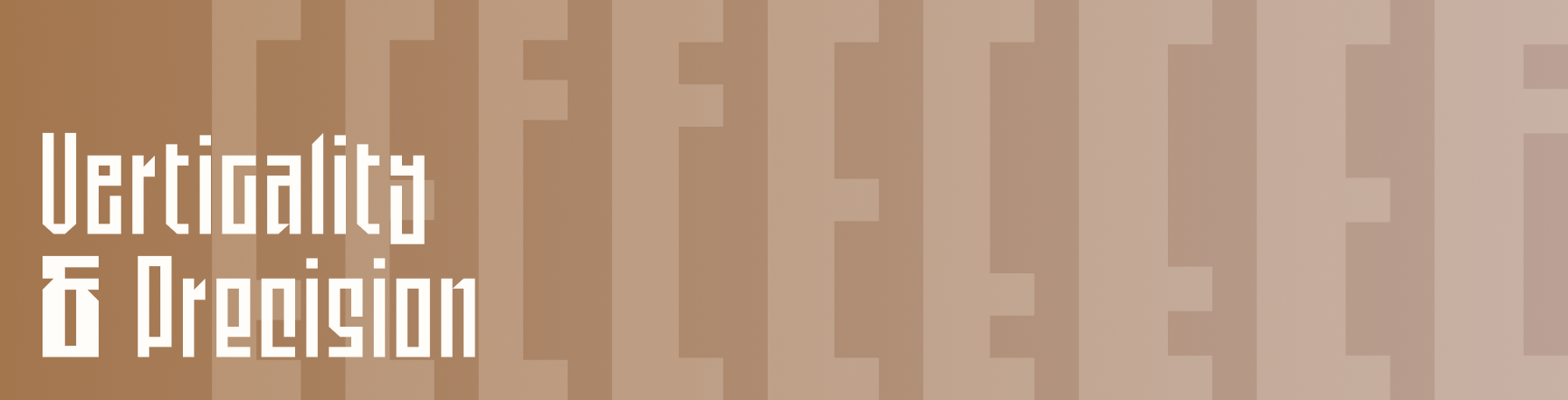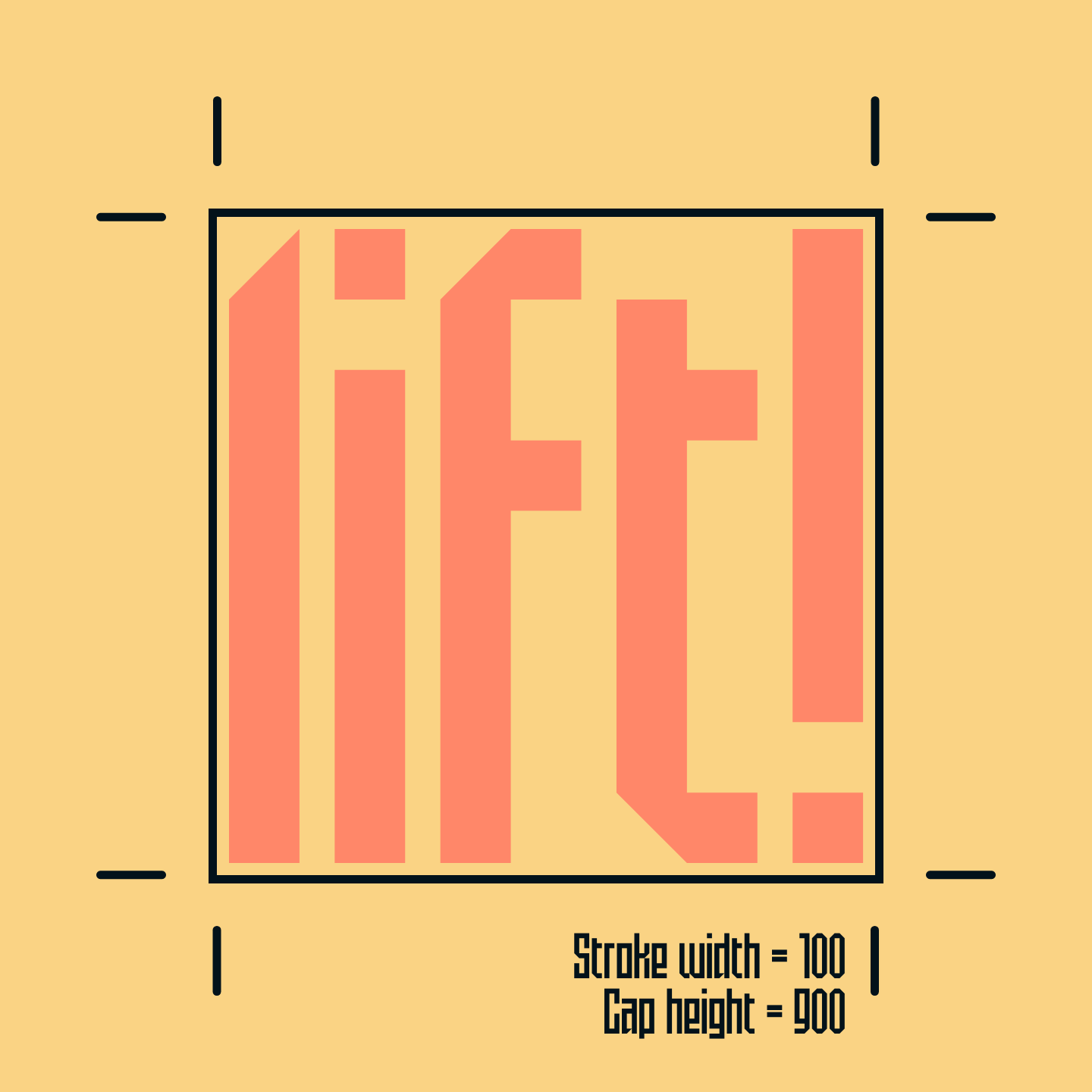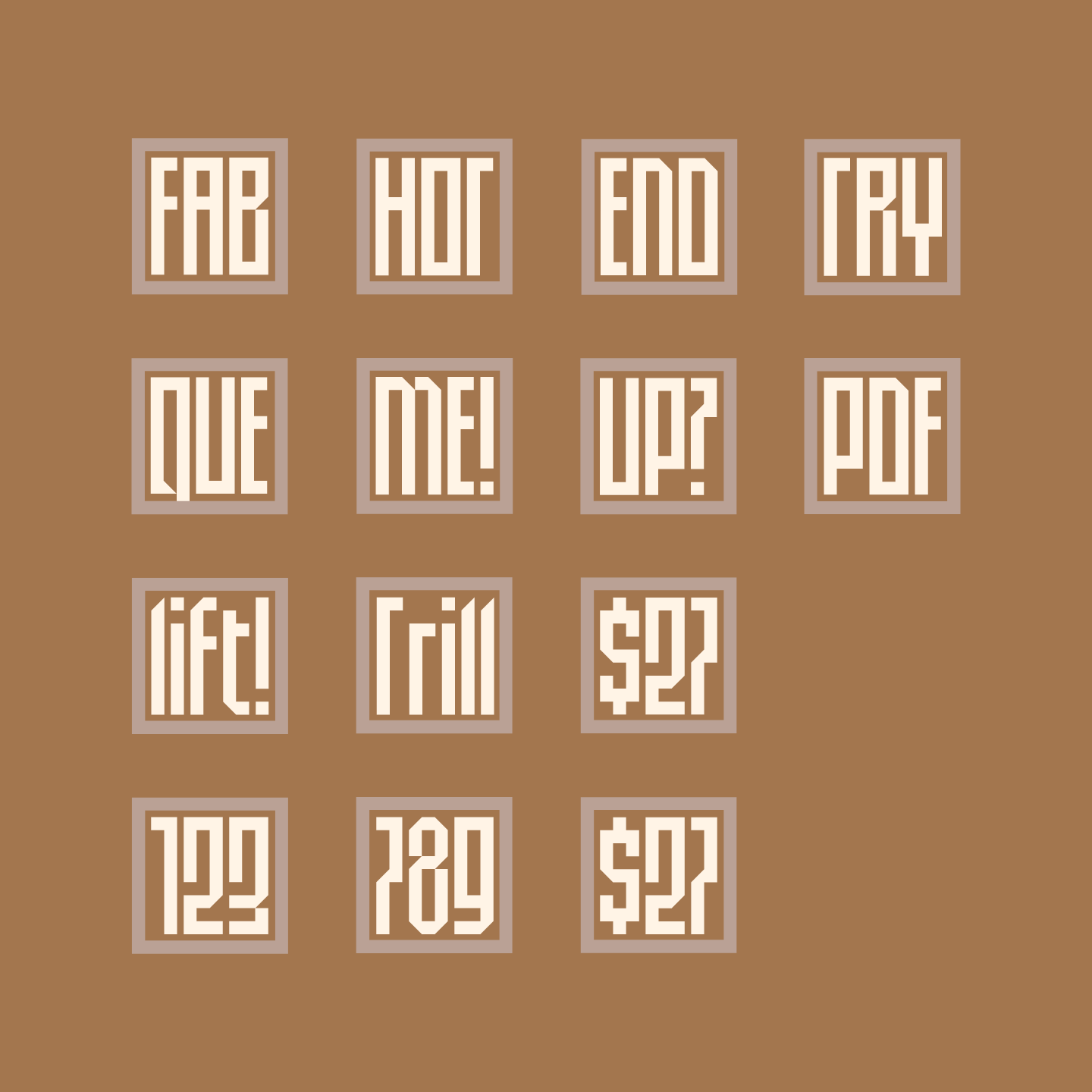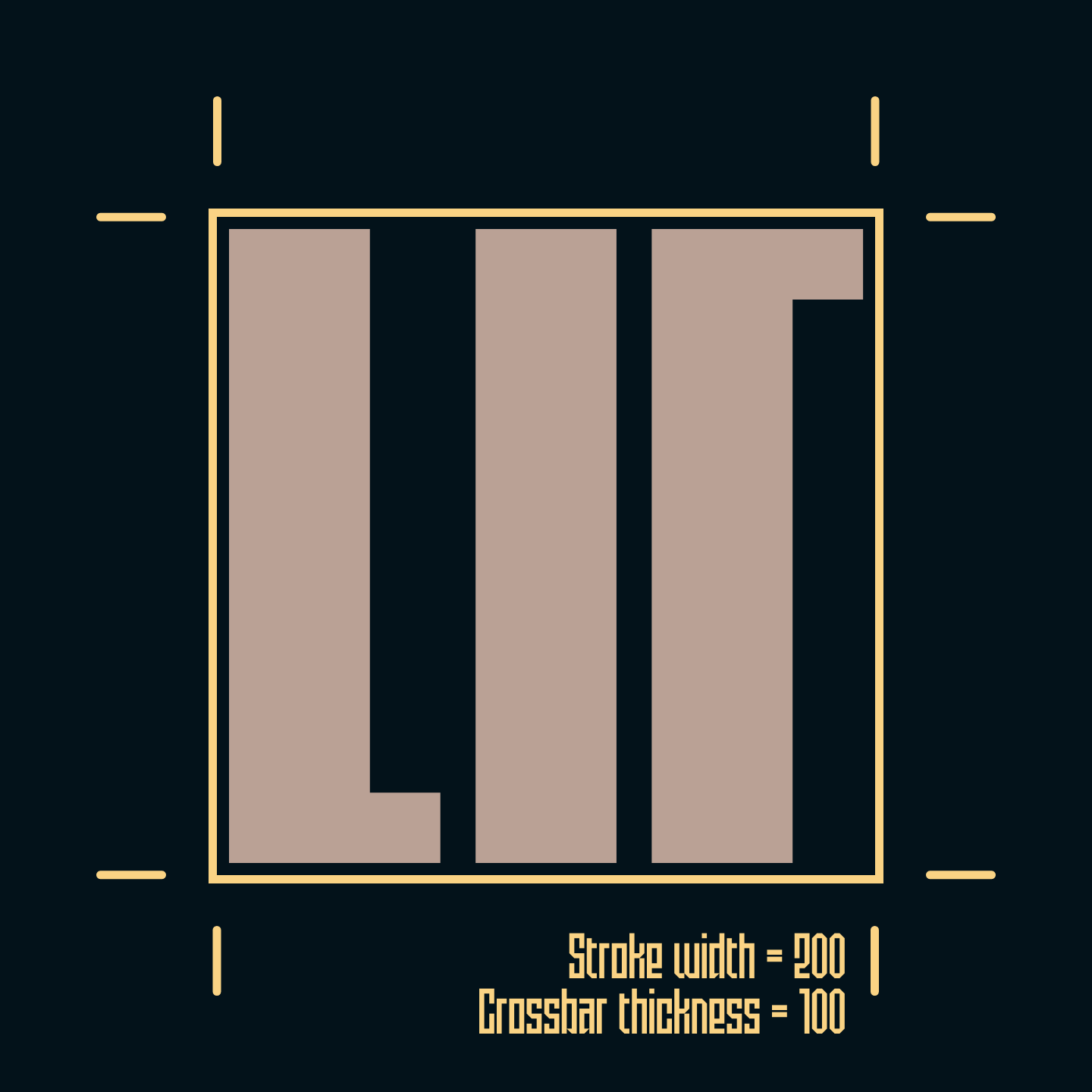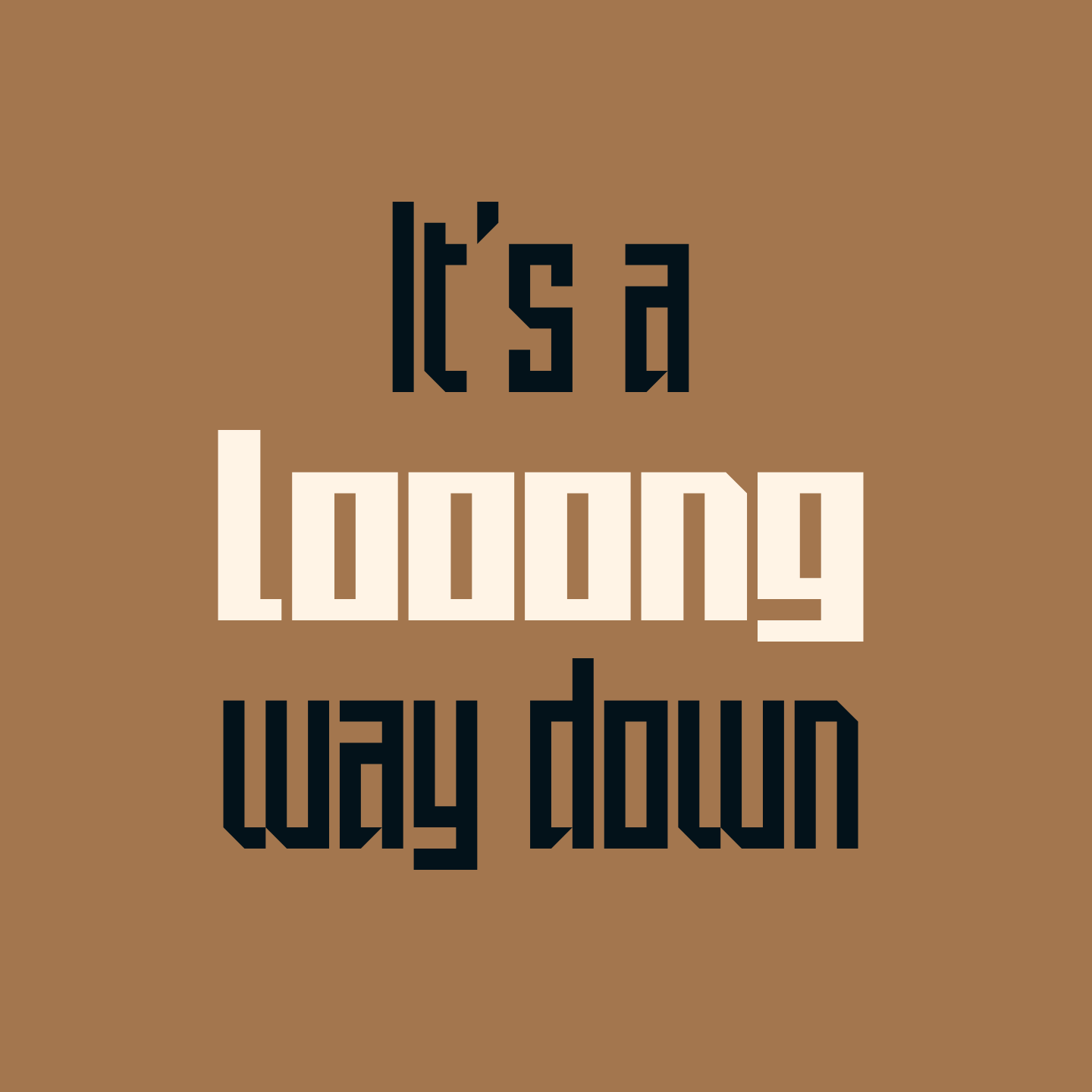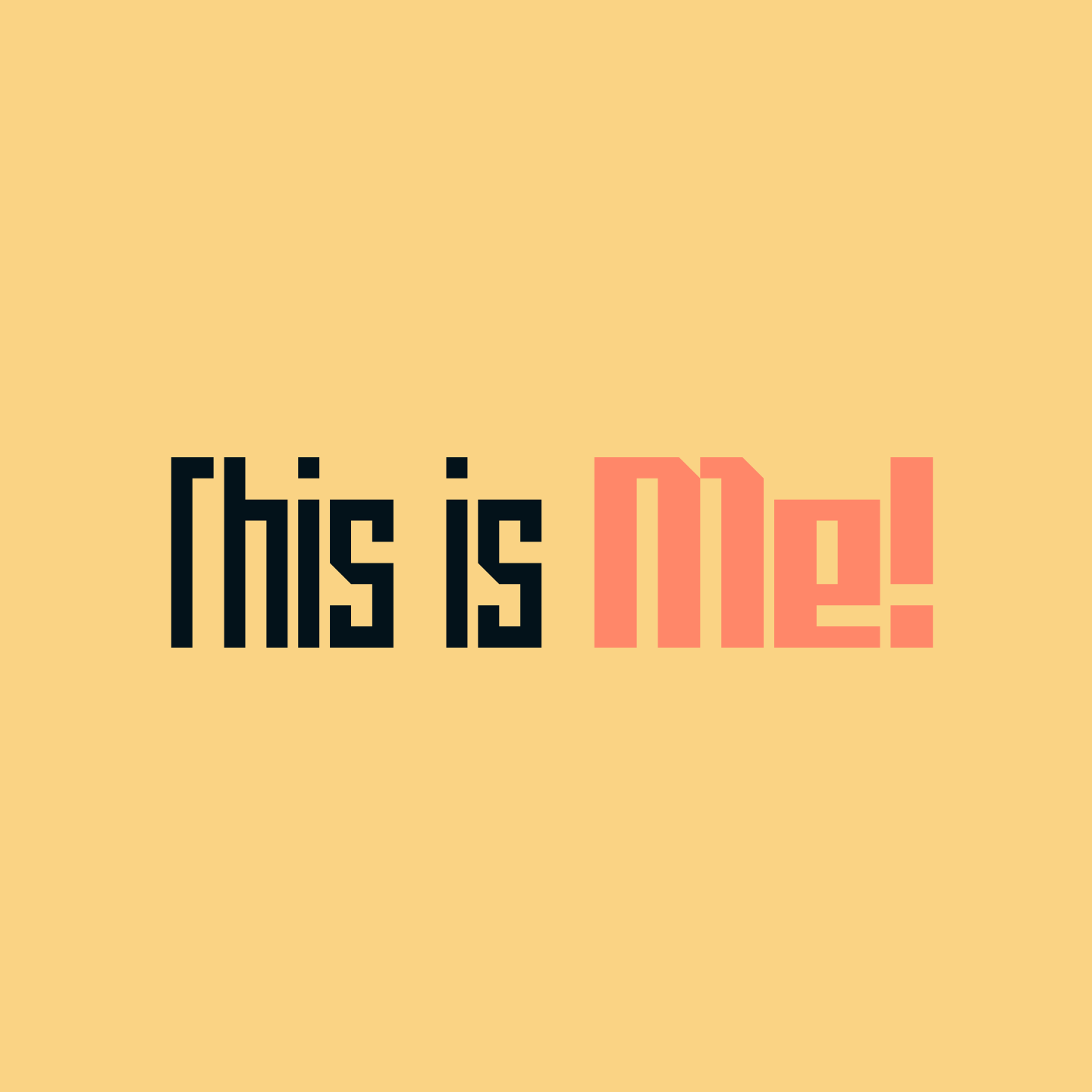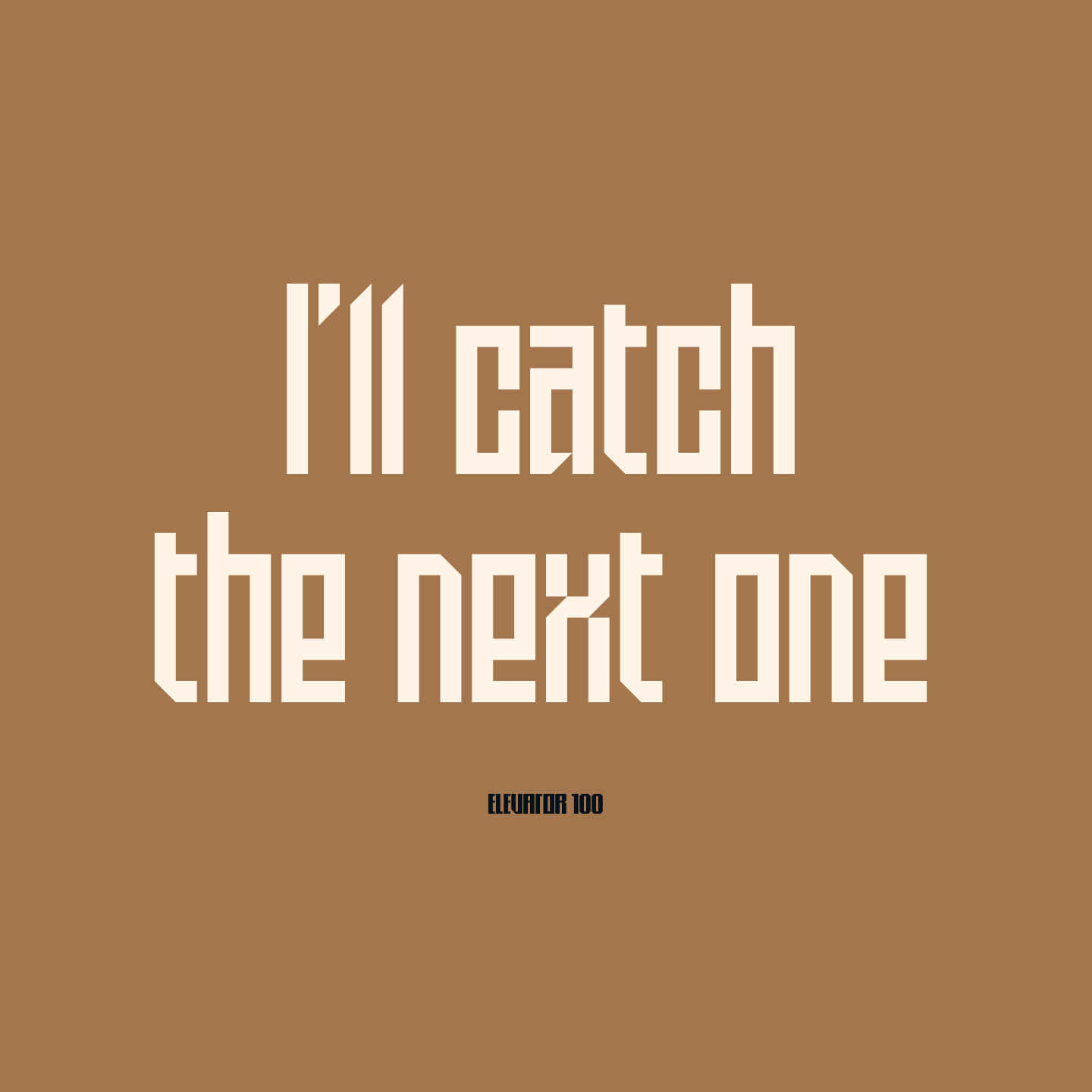
Elevator Sans began as a three character logo for an elevator company and was inspired by an elevator’s verticality and precision of design. The result is a condensed geometric display typeface great for styling long wordmarks or for locking up a few characters into a perfect square.
Elevator is a variable font with a weight axis and a style axis that raises and lowers certain parts of letterforms.